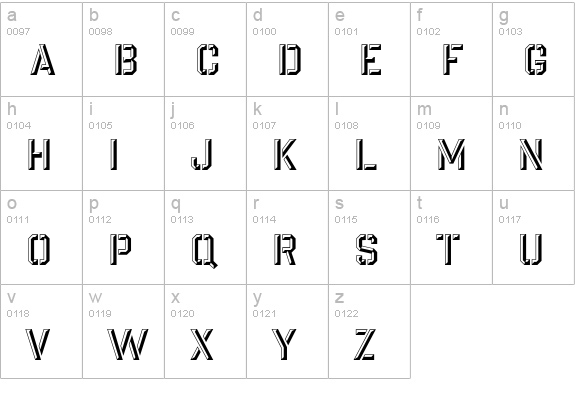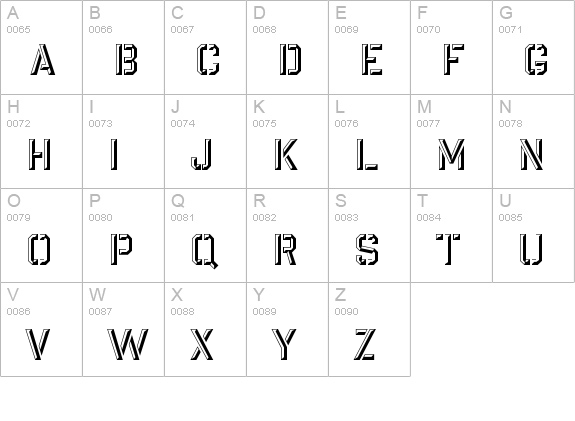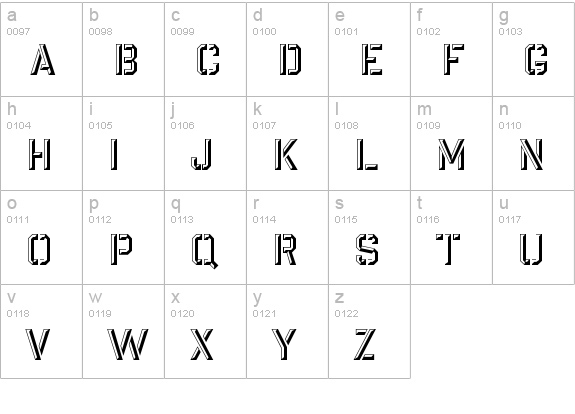
Giant Shaded Font Details
The Giant Shaded font is a bold and eye-catching typeface that commands attention with its towering presence and unique shading effect. This larger-than-life font is perfect for making a statement and adding a touch of drama to your designs. The Giant Shaded font is ideal for headlines, posters, banners, and any other project that requires a bold and impactful typography. Best of all, the Giant Shaded font is available for free download at FontsMarket.com. You can easily add this striking font to your collection without breaking the bank. Don't miss out on this fantastic opportunity to enhance your designs with the impressive Giant Shaded font!